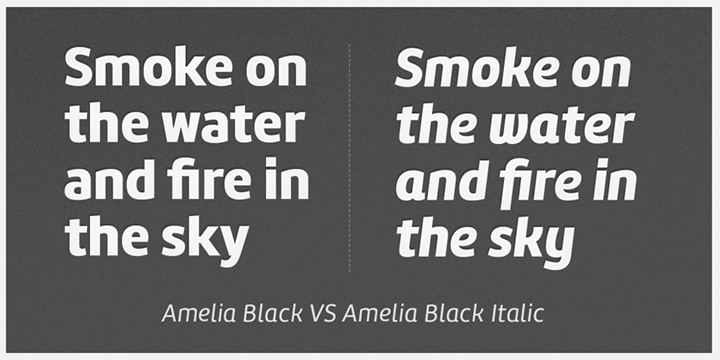
Prada Script
Prada is bold, classic, and fun vintage script. Crafted with OpenType features with more than 60 alternate characters to choose. This font was designed to suited as headlines, signage, poster, logo, badge, and emblem. Make sure you use OpenType savvy program and simply open Glyph Palette to access all of the glyphs.
Grand Hotel
Grand Hotel finds its inspiration from the title screen of the 1937 film “Cafe Metropole” starring Tyrone Power. This condensed upright connecting script has a classic vibe to it.
It has a wonderful weight to it that feels subtly tied to Holiday and Bakery themed designs, even though it can work outside that genre.
Designed by Brian J. Bonislawsky and Jim Lyles for Astigmatic (AOETI).
Amelia
Type designer: Martín Sommaruga
Amelia is a geometric sans, but it keeps the softness of humanistic strokes. The contrast and the different styles allow Amelia to work as a text or display font. Also it incorporates an Up version, calligraphic features that add a touch of informality.